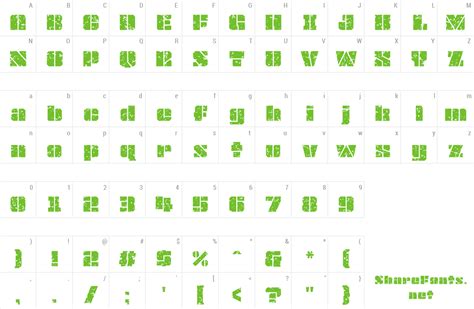
JLS Overkill Font: A Typographic Deep Dive
Hey font fanatics, and welcome back to the blog! Today, we’re diving deep into a font that’s been making waves and turning heads in the design world: the JLS Overkill font . If you’re someone who appreciates bold, impactful, and downright cool typography, then you’re in for a treat. We’re going to unpack what makes this font so special, where you might have seen it, and why it’s a go-to choice for designers looking to make a statement. Get ready, because we’re about to explore the nitty-gritty of this fantastic typeface!
Understanding the JLS Overkill Font’s Appeal
So, what exactly is it about the JLS Overkill font that grabs your attention? Well, for starters, it’s all about boldness and character . This isn’t your average, run-of-the-mill sans-serif; it’s got a personality all its own. Think thick strokes, strong geometric shapes, and a sense of confident presence. It’s the kind of font that doesn’t shy away from the spotlight. When you see the JLS Overkill font in action, it demands your attention. It’s perfect for headlines, logos, posters, and any design project where you need to convey a sense of power, modernity, or even a touch of retro-futurism. The blocked style, which is a key characteristic, gives it a solid, almost architectural feel. It’s like each letter is a building block, creating a visually arresting composition. This deliberate blocking of forms contributes to its unique aesthetic, making it instantly recognizable. It’s this distinctiveness that sets it apart from more subtle or conventional fonts, offering designers a powerful tool to inject visual punch into their work. The versatility of its blocked design also means it can be used in a surprisingly wide range of applications, from branding for tech startups to promotional materials for music events.
Where Has This Font Been Hiding?
While the JLS Overkill font might not be as ubiquitous as Arial or Times New Roman, it has a way of showing up in places where impact is key. You’ll often find it used in graphic design for music album covers, particularly in genres that lean towards electronic, industrial, or experimental sounds. Its futuristic vibe makes it a natural fit for sci-fi movie posters or video game titles, where creating an immersive and exciting visual world is paramount. Event promotions, especially for concerts or festivals with a modern or edgy theme, frequently employ this typeface to grab attention. Think bold, impactful flyers or digital banners. Logos for brands that want to project strength, innovation, or a cutting-edge image are also prime candidates for the JLS Overkill font. Its unique structure allows for creative logo treatments that stand out from the crowd. Even in editorial design, for magazines or websites that cater to a younger, trend-conscious audience, it can be used sparingly for pull quotes or section headers to add a burst of visual energy. The key is that wherever it appears, it’s usually a deliberate choice to amplify a message of boldness and distinctiveness. It’s a font that speaks volumes without saying a word, making it a favorite among designers who aren’t afraid to be noticed. Its presence is usually a sign that the design aims for something more than just functional communication; it’s about creating an aesthetic experience that resonates with the intended audience, often through a visceral, immediate visual impact. The blocked nature of the font can also be played with in terms of color and texture, further enhancing its adaptability across different media and design styles, ensuring it remains a potent tool for visual storytelling.
The Designer’s Toolkit: Using JLS Overkill Effectively
Alright, let’s talk shop. If you’re a designer, or aspiring to be one, and you’re considering the JLS Overkill font for your next project, here are some tips to make it sing. Firstly , embrace its boldness. Don’t try to tame it or pair it with overly delicate elements unless you’re aiming for a very specific, contrasting effect. This font is meant to be seen, so let it shine. Use it for your main headlines, your key calls to action, or your brand’s logotype. Secondly , consider the spacing. Because of its blocky nature, kerning (the space between individual letters) and leading (the space between lines) are crucial. Pay close attention to these details to ensure readability and a polished look. Sometimes, slightly tighter kerning can enhance its solid feel, while generous leading can give it breathing room. Thirdly , think about the context. This font works best when the overall design aesthetic aligns with its strong, modern, or even slightly retro-futuristic vibe. It might not be the best choice for a formal wedding invitation or a children’s book, but for a tech conference, a music festival, or a streetwear brand, it’s practically perfect. Fourthly , don’t be afraid to experiment with color. The blocked segments of the letters lend themselves beautifully to creative color fills, outlines, or even gradient effects. You can play with negative space within the letters themselves to create interesting visual dynamics. Finally , remember that less can be more. While JLS Overkill is undeniably impactful, overusing it can make your design feel cluttered or aggressive. Use it strategically as a focal point, and pair it with simpler, supporting fonts for body text to ensure your message remains clear and balanced. By understanding its strengths and applying it thoughtfully, you can harness the power of JLS Overkill to create designs that are not only visually striking but also effectively communicate your intended message with a unique flair that captures attention and leaves a lasting impression. The key is balance and intentionality, ensuring the font serves the overall design narrative rather than overpowering it.
Why JLS Overkill Stands Out in a Crowded Field
In the vast ocean of available typefaces, the JLS Overkill font manages to carve out its own niche, and for good reason. Its uniqueness stems from its distinctive blocked aesthetic . Unlike fonts that rely on subtle curves or intricate serifs, JLS Overkill makes a bold statement with its geometric, almost pixelated construction. This deliberate design choice results in a typeface that is instantly recognizable and full of personality. It’s a font that doesn’t blend in; it stands out. This inherent impact makes it a favorite for designers who need to make a strong visual impression. Whether it’s for a brand logo that needs to convey strength and modernity, a poster for an event that needs to grab attention from across a room, or a headline that demands to be read, JLS Overkill delivers. Its visual weight and solid form suggest reliability and power, qualities that many brands strive to embody. Furthermore, the